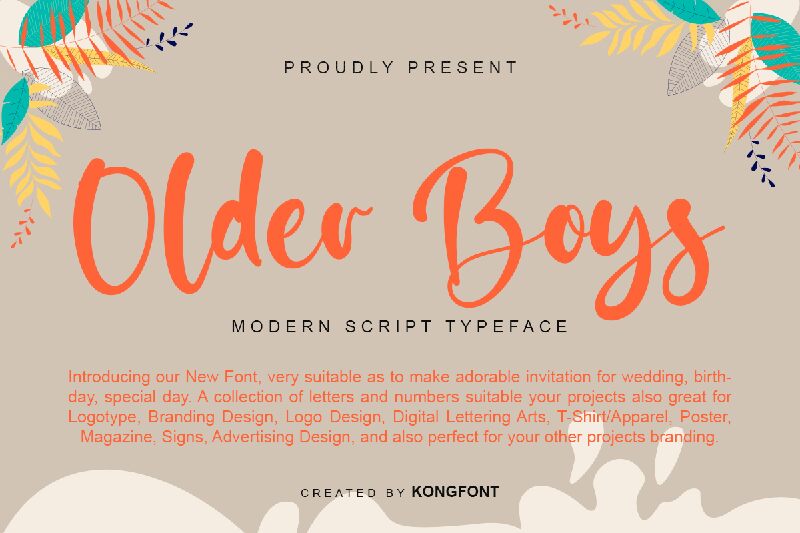
Older Boys
Older Boys, a modern script font by Kong Font, is the perfect typeface for projects that require an edgy and stylish touch. With its unique curves and sharp lines, this semi-bold font is sure to make a statement in any design. Whether it's for a fashion brand or a trendy restaurant menu, Older Boys adds sophistication and elegance to any project. Its medium width makes it suitable for both print and digital media, while its versatility allows it to shine in anything from logos to packaging designs. Upgrade your design game with Older Boys – the ultimate modern script font!